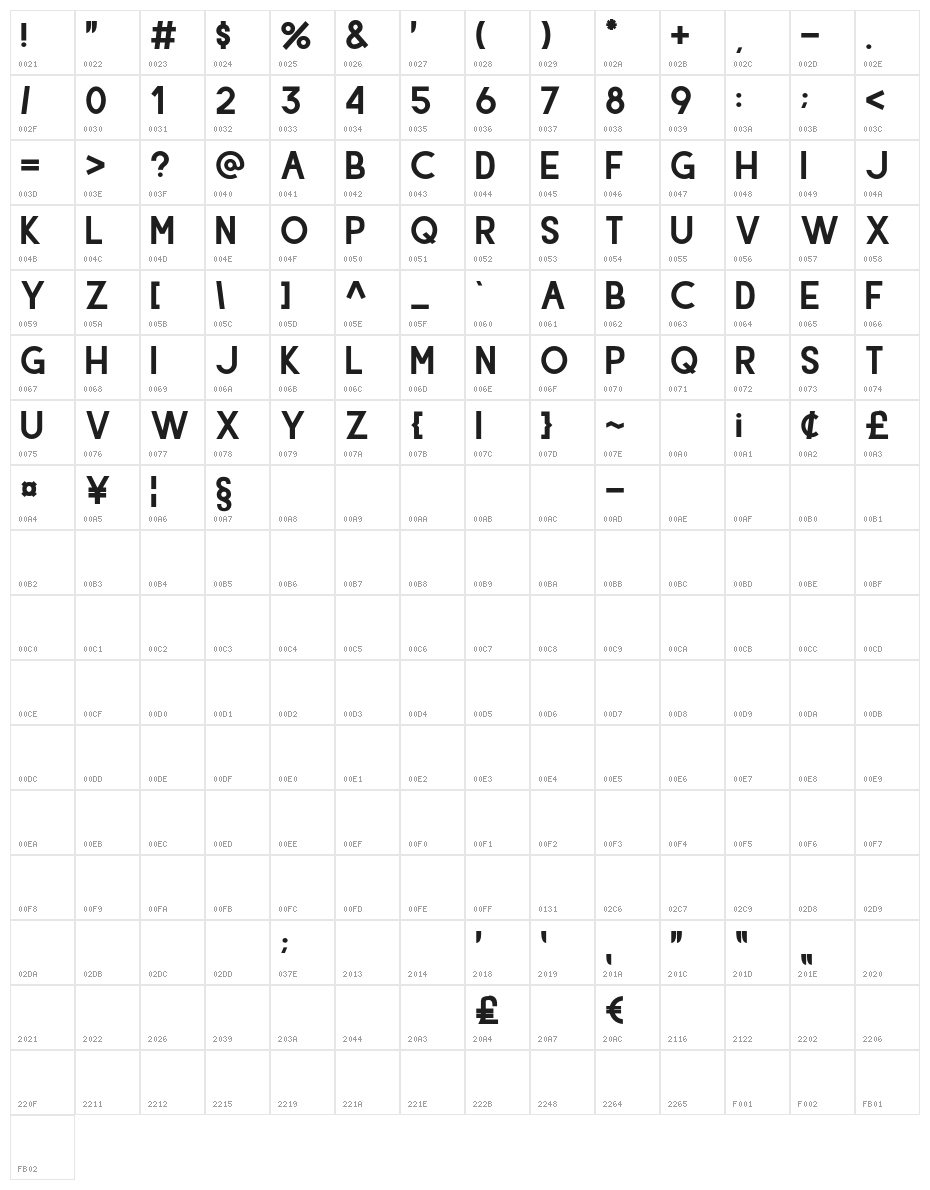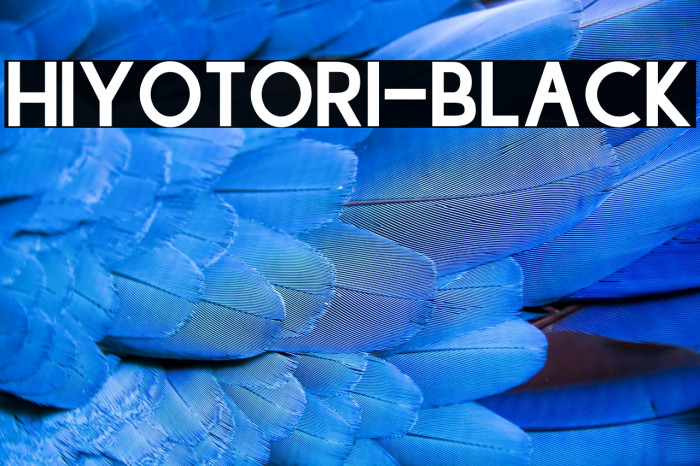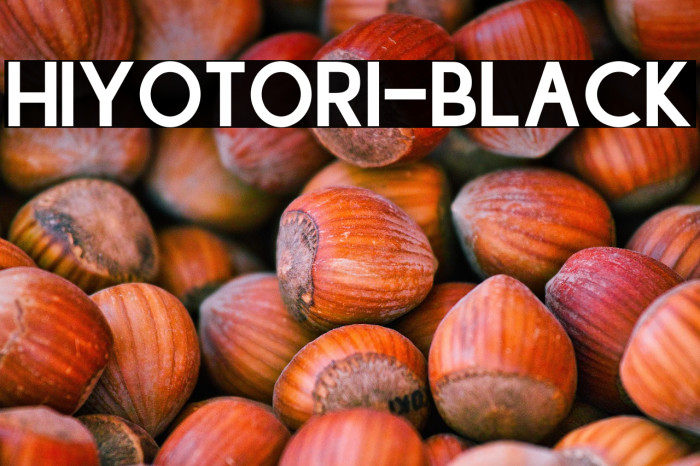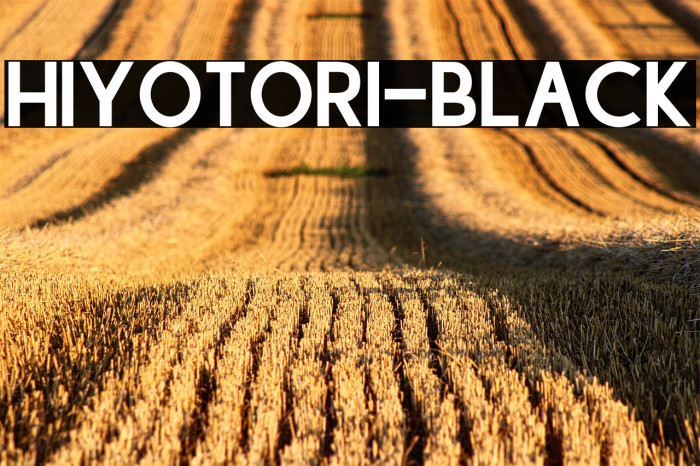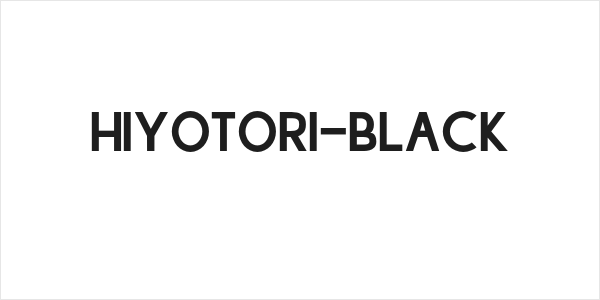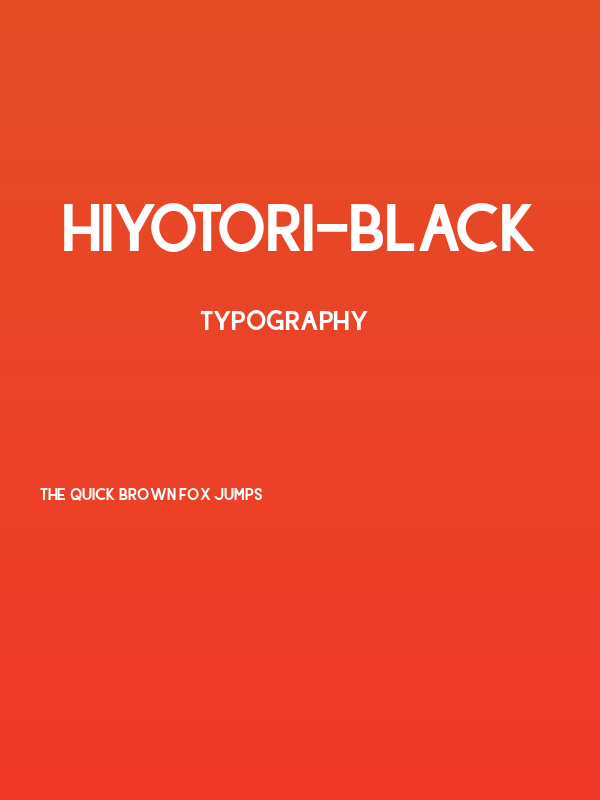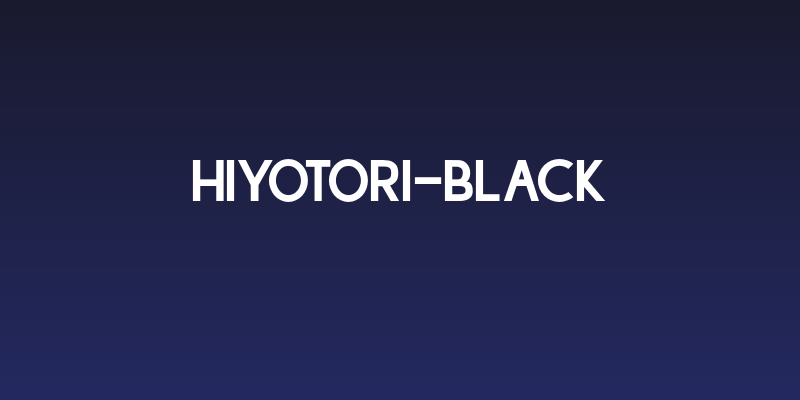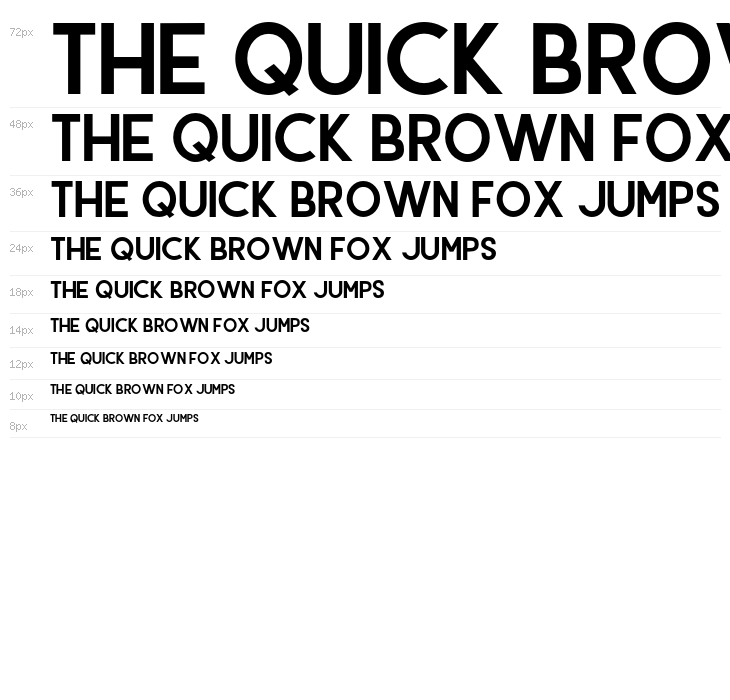
Hiyotori-Black Font
Hiyotori-Black Description
This font features bold, geometric letterforms with a modern and clean aesthetic. The characters are constructed with uniform stroke widths, giving them a strong and impactful presence. The uppercase letters are particularly striking, with their consistent height and width, creating a harmonious and balanced look. The numerals are equally bold, maintaining the same visual weight as the letters, ensuring readability and clarity. The special characters are well-integrated, matching the overall style and weight of the font. This typeface is versatile, suitable for a variety of design applications where a bold and modern look is desired.
| Proposed Projects | Ideal for branding, headlines, posters, and any project requiring a strong visual impact. |